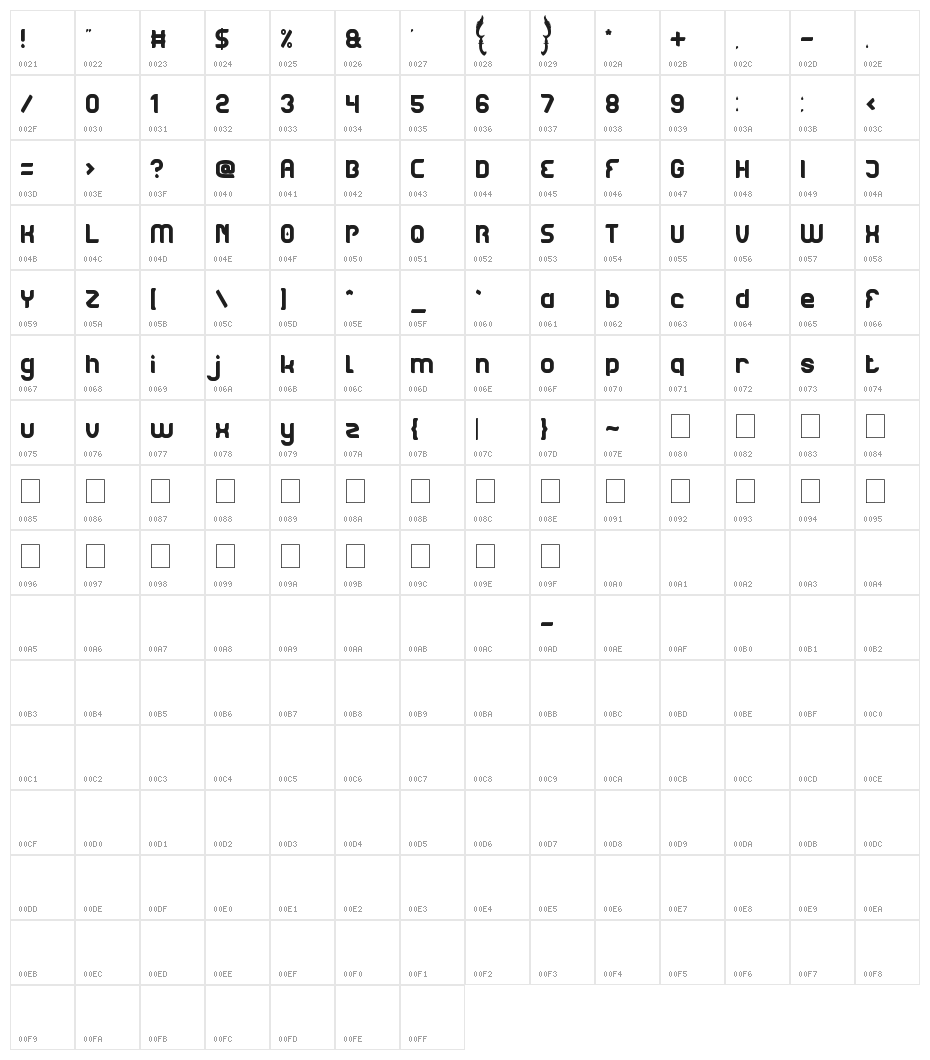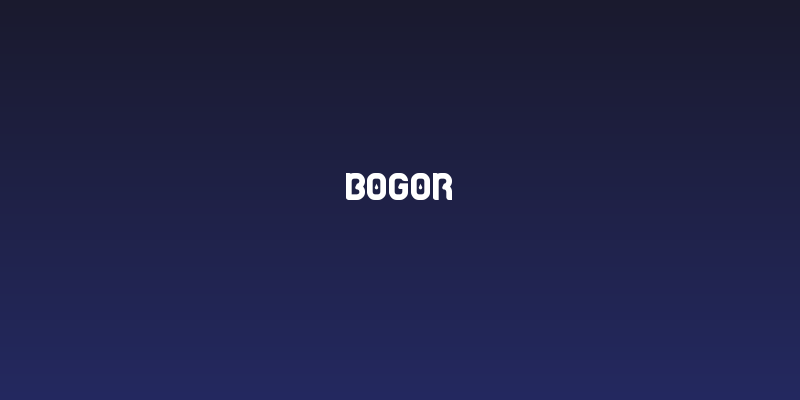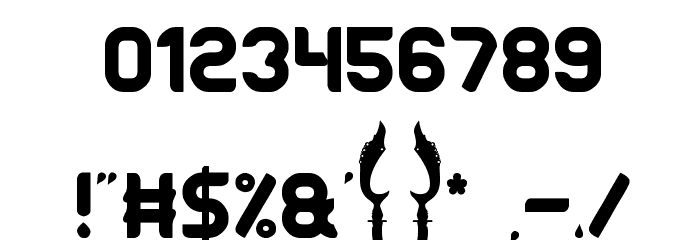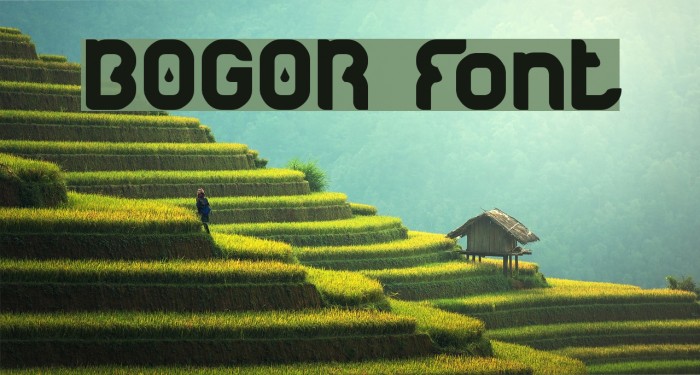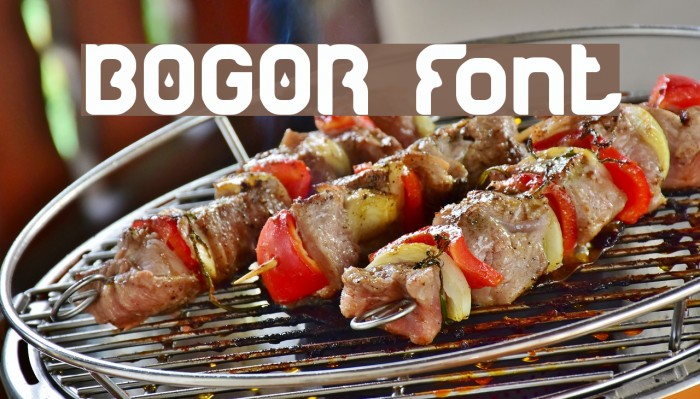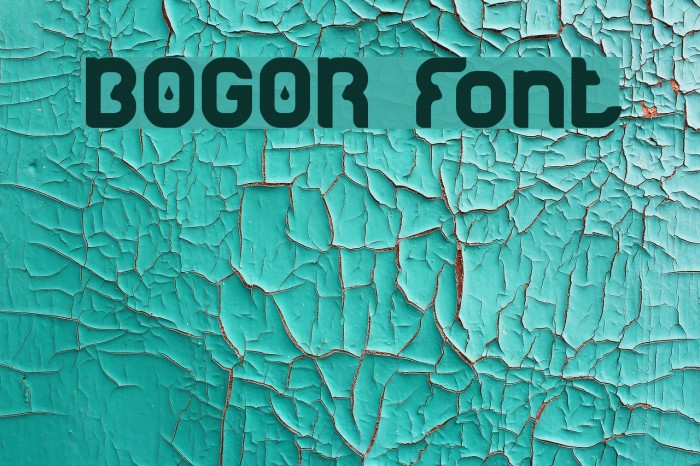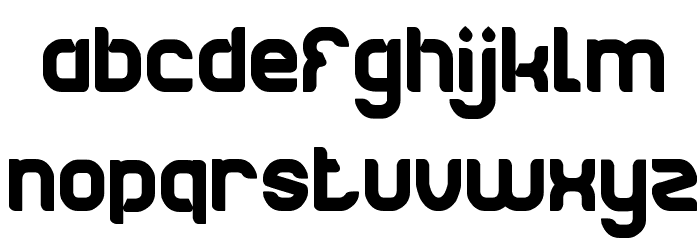
BOGOR Font
BOGOR Description
This font features a bold and rounded style with a modern and playful appearance. The characters are uniformly thick, giving it a strong presence. The rounded edges soften the overall look, making it approachable and friendly. The uppercase and lowercase letters maintain a consistent style, with the lowercase having a slightly more compact form. The numerals are clear and easily distinguishable, while the special characters maintain the same bold and rounded characteristics. This font is ideal for projects that require a modern yet approachable aesthetic.
| Proposed Projects | Ideal for branding, headlines, posters, and children's books. |